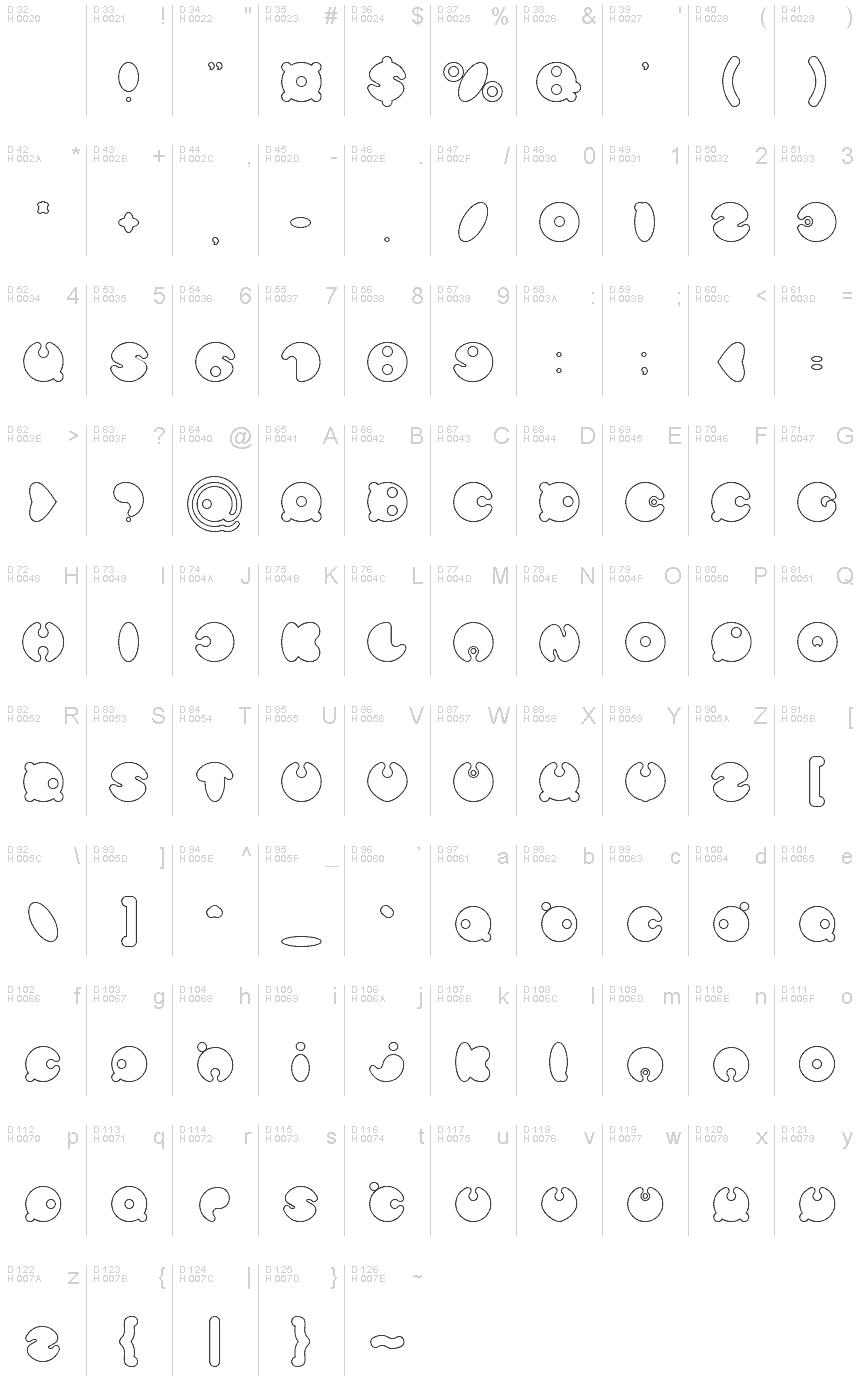
MASTER PANDA-Hollow
Master Panda Hollow is a captivating display font that radiates a groovy, retro-inspired charm. Its bold, expanded outlines and hollow interior create a striking visual presence, ideal for eye-catching headlines, poster designs, and branding applications. The font's unique blend of playfulness and boldness makes it a standout choice for projects seeking a retro-contemporary aesthetic, such as album covers, event posters, and product packaging. With its distinctive style and versatility, Master Panda Hollow is a font that can elevate the visual impact of any design.
Crafted by the talented team at Weknow, this font invites designers to explore the boundaries of typographic expression. Its playful, yet polished appearance lends itself to a wide range of design contexts, from vintage-inspired logos to modern, attention-grabbing displays.